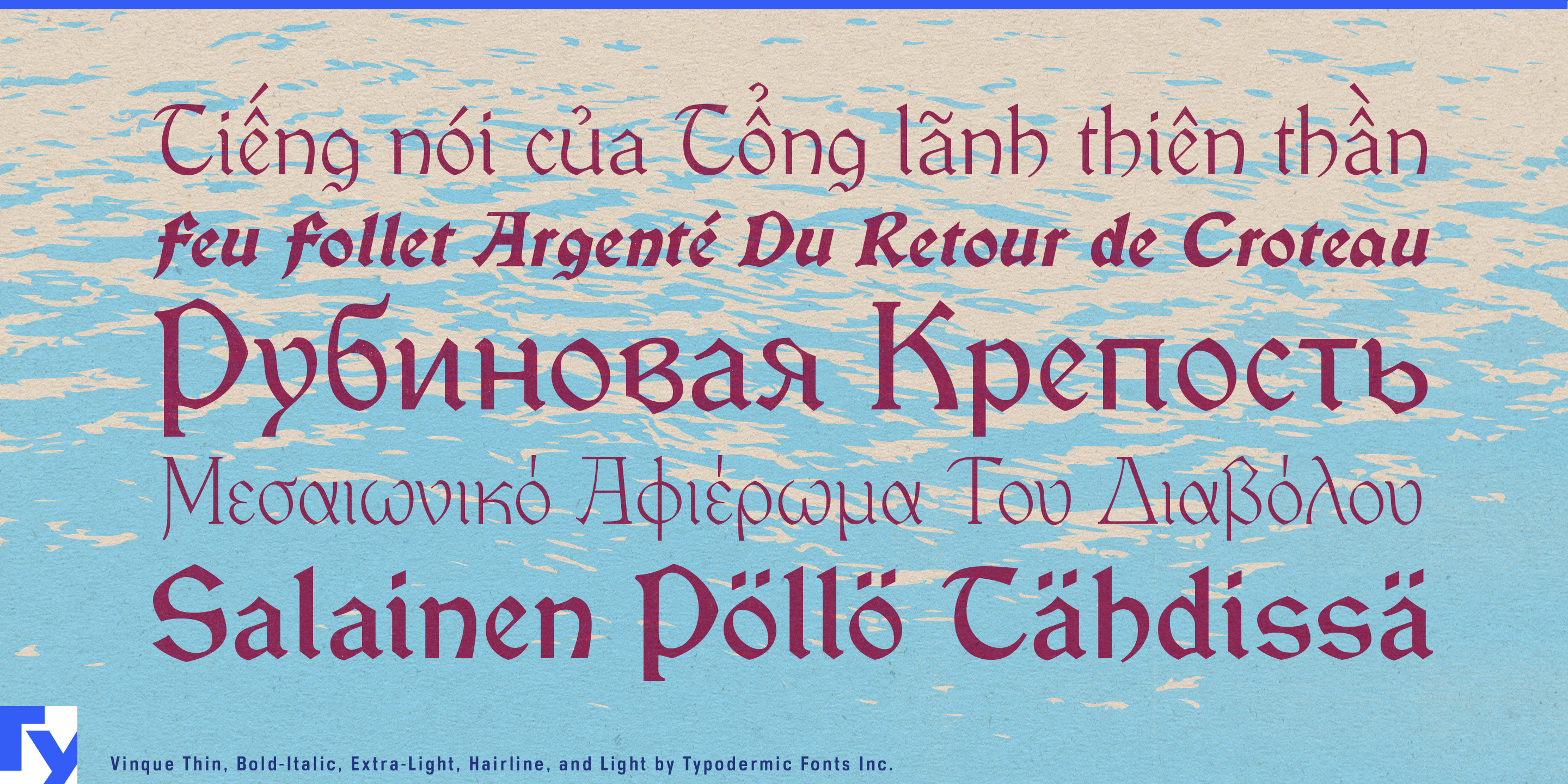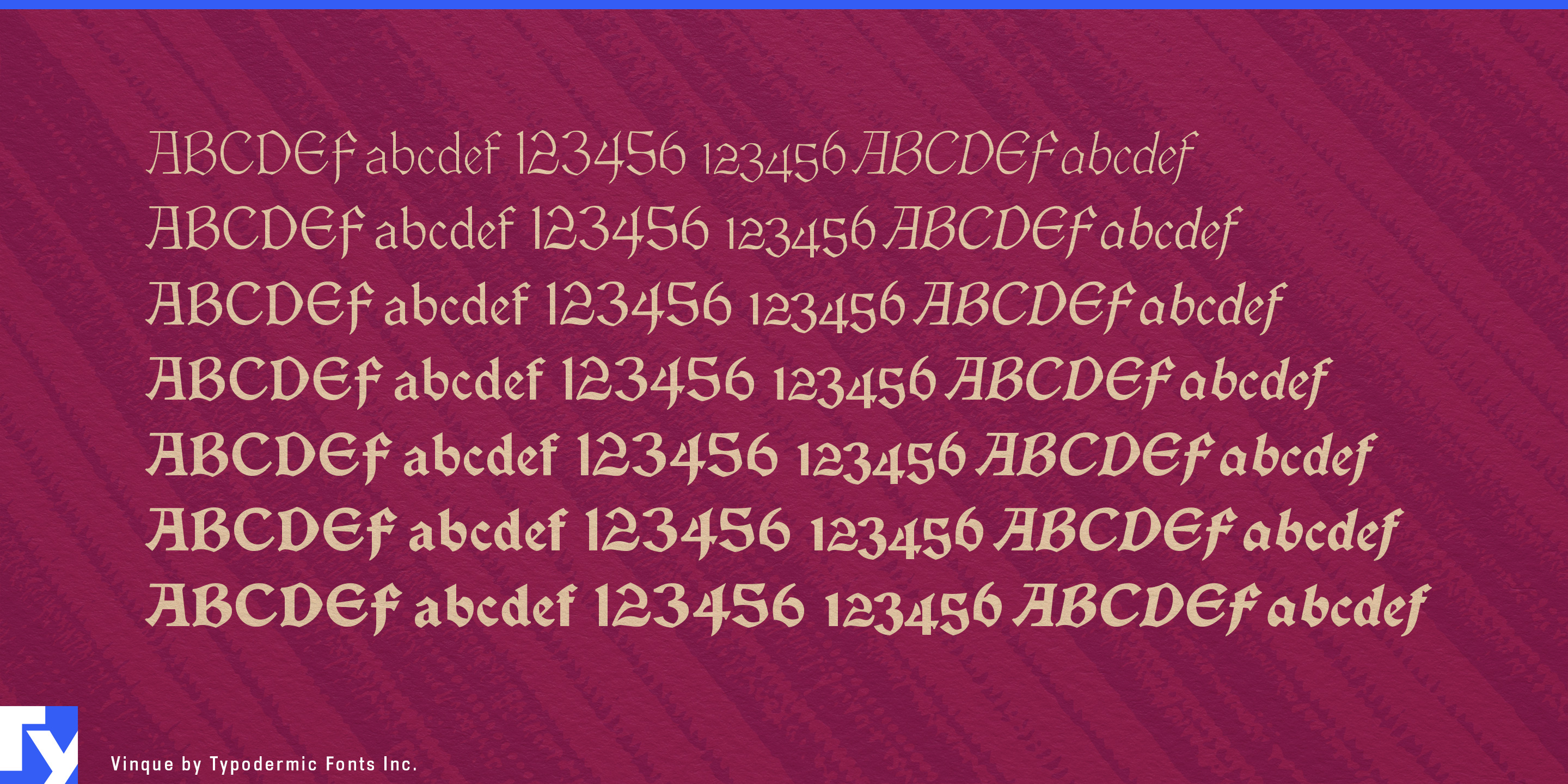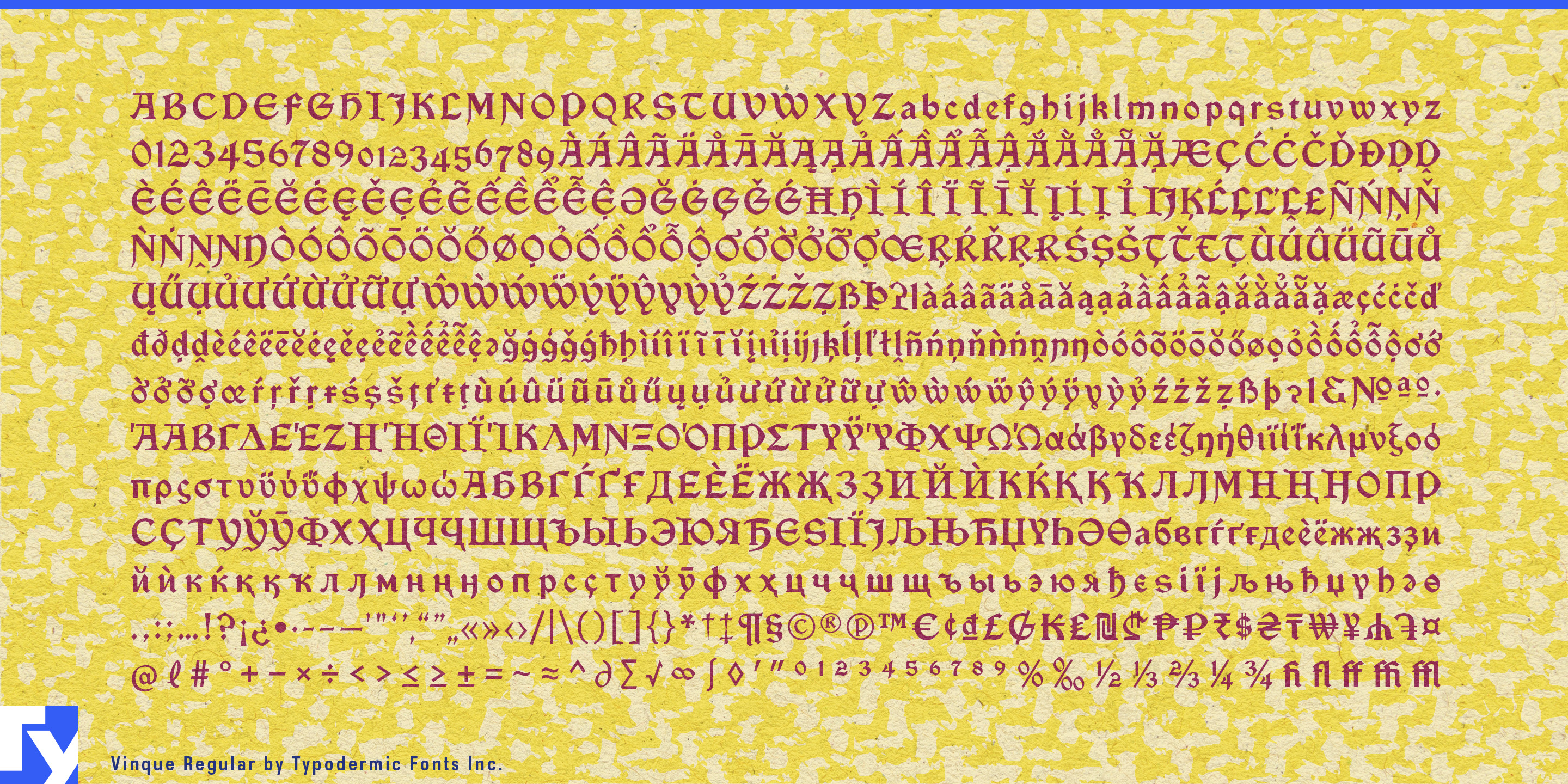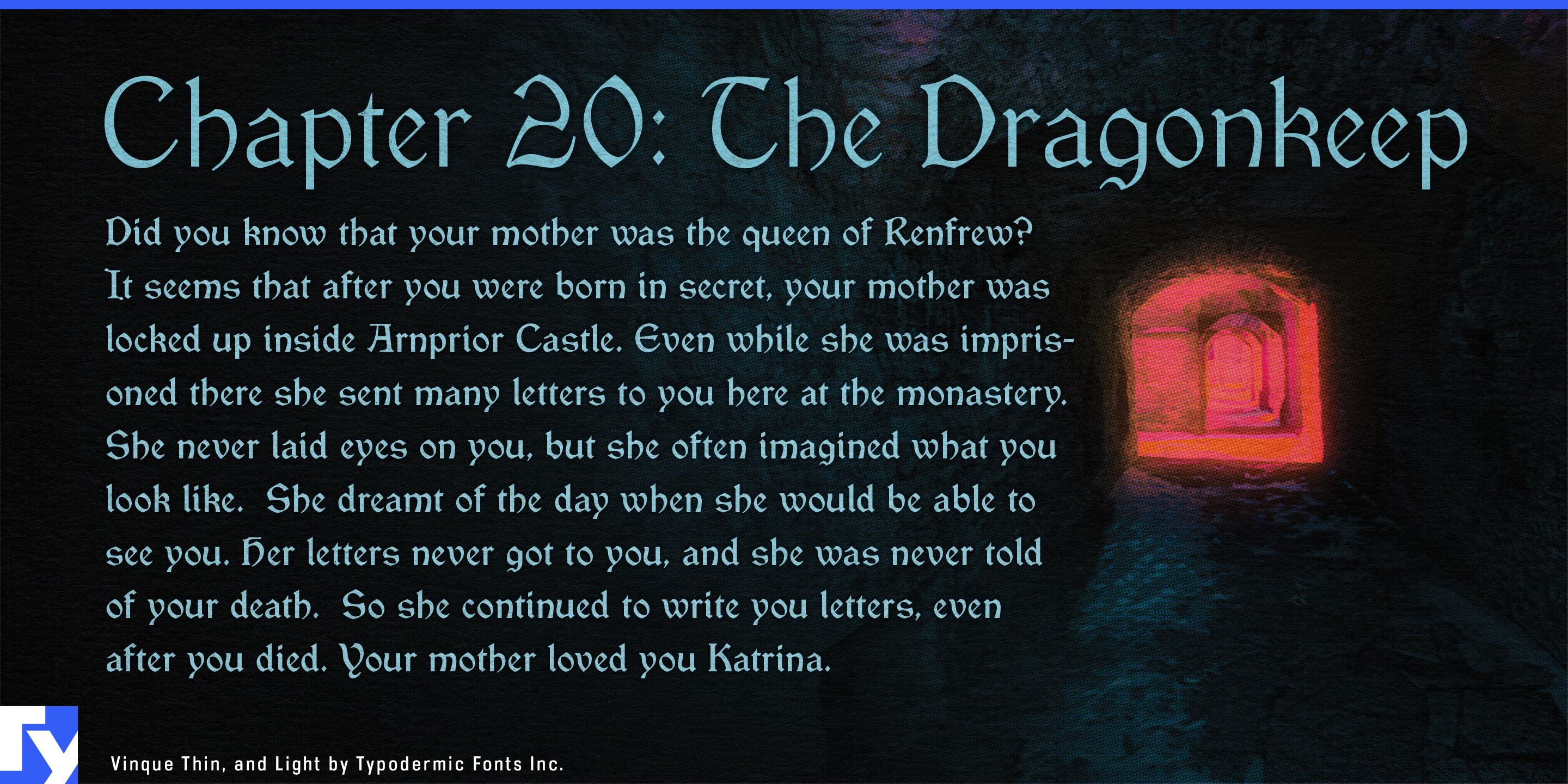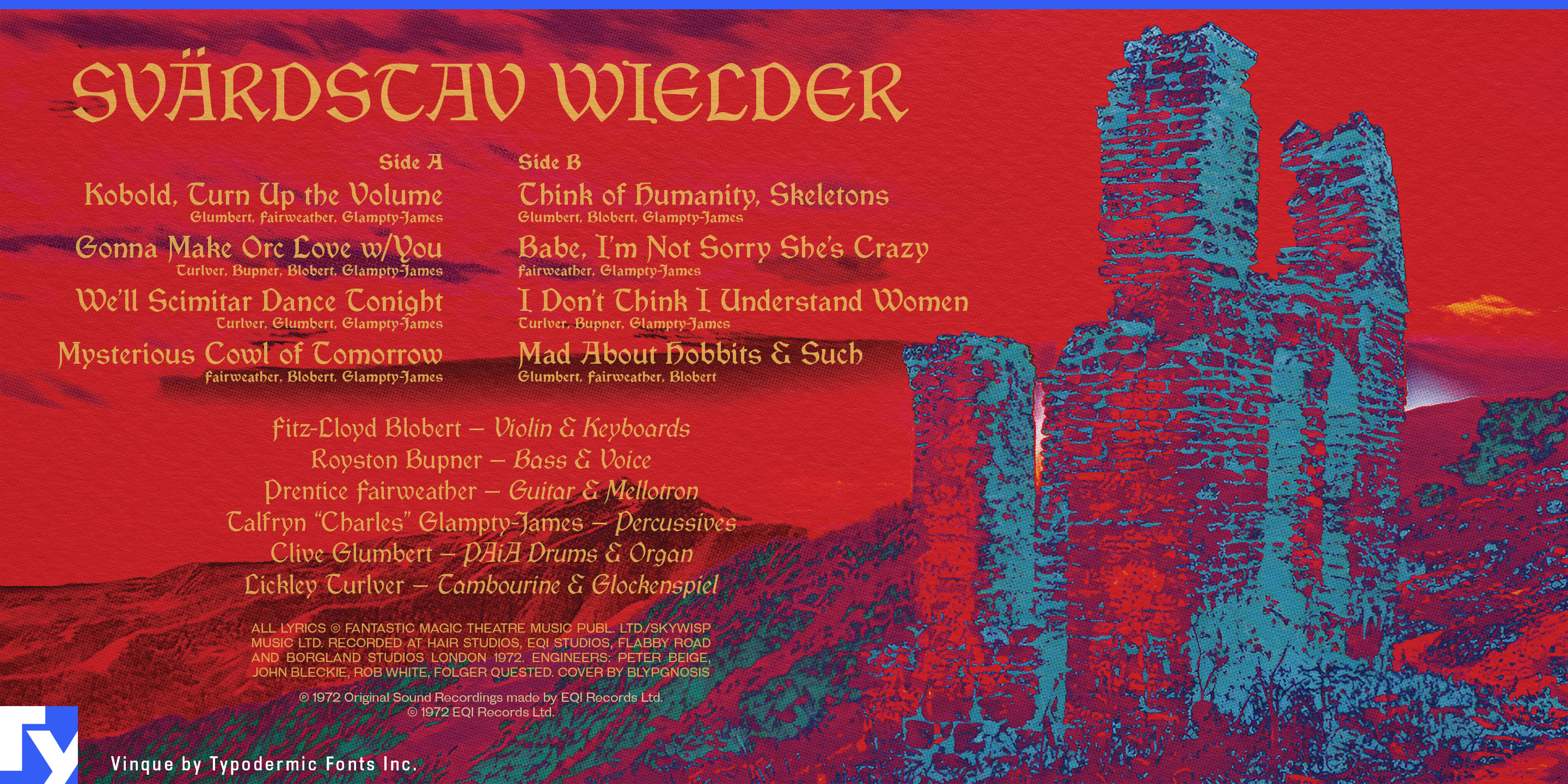
Vinque
A fantasy interface has to do two things at once: establish the world and let players read it. Traditional blackletter can supply medieval atmosphere immediately, but ornate forms become cumbersome when they have to carry quest names, inventory categories, dialogue choices, location labels, and hundreds of other pieces of changing text. Vinque was designed for that middle ground. Its gothic and Arts & Crafts influences give it a historical-fantasy character while its comparatively simple letterforms remain practical for repeated display use.
That makes Vinque particularly useful in fantasy RPGs, where typography extends far beyond the title screen. Quest headings, character classes, skill trees, weapon and armor names, map locations, achievements, dialogue choices, chapter screens, and loading-screen titles all need to belong to the same world. Because much of this material changes dynamically or arrives through localization, it cannot depend on individually drawn lettering. Vinque supplies a consistent fantasy voice that keeps working as the content changes.
Medieval strategy and settlement games create the same problem at greater scale. Kingdom builders, dynastic strategy games, castle-management systems, trade simulations, and historical city builders may need province names, building categories, unit classes, resources, diplomacy headings, event titles, and campaign-map labels across thousands of interface states.
Its character also works beyond grim medieval worlds. Enchanted forests, alchemy shops, magical academies, guilds, wandering adventurers, witches, folklore creatures, and fairy-tale settings can use Vinque without acquiring the severity of traditional gothic lettering. A cozy fantasy game can use it for potion names, recipe headings, shop categories, customer requests, and chapter titles just as naturally as a dungeon game can use it for boss names, loot tiers, weapon classes, and victory screens.
The same advantages extend beyond video games. Tabletop RPG systems can use Vinque across rulebooks, campaign guides, card decks, maps, boxed sets, and digital companions. Fantasy entertainment properties can carry it through location cards, collector packaging, companion publications, merchandise, and convention environments, while immersive attractions can use it for realm names, maps, shop and tavern signs, attraction headings, and environmental graphics.
Vinque gives fantasy typography enough historical flavor to establish a setting without making the audience work for every word. It is especially useful when medieval or folkloric atmosphere has to survive not just in a logo, but across the changing names, categories, choices, and places that make a fictional world function.